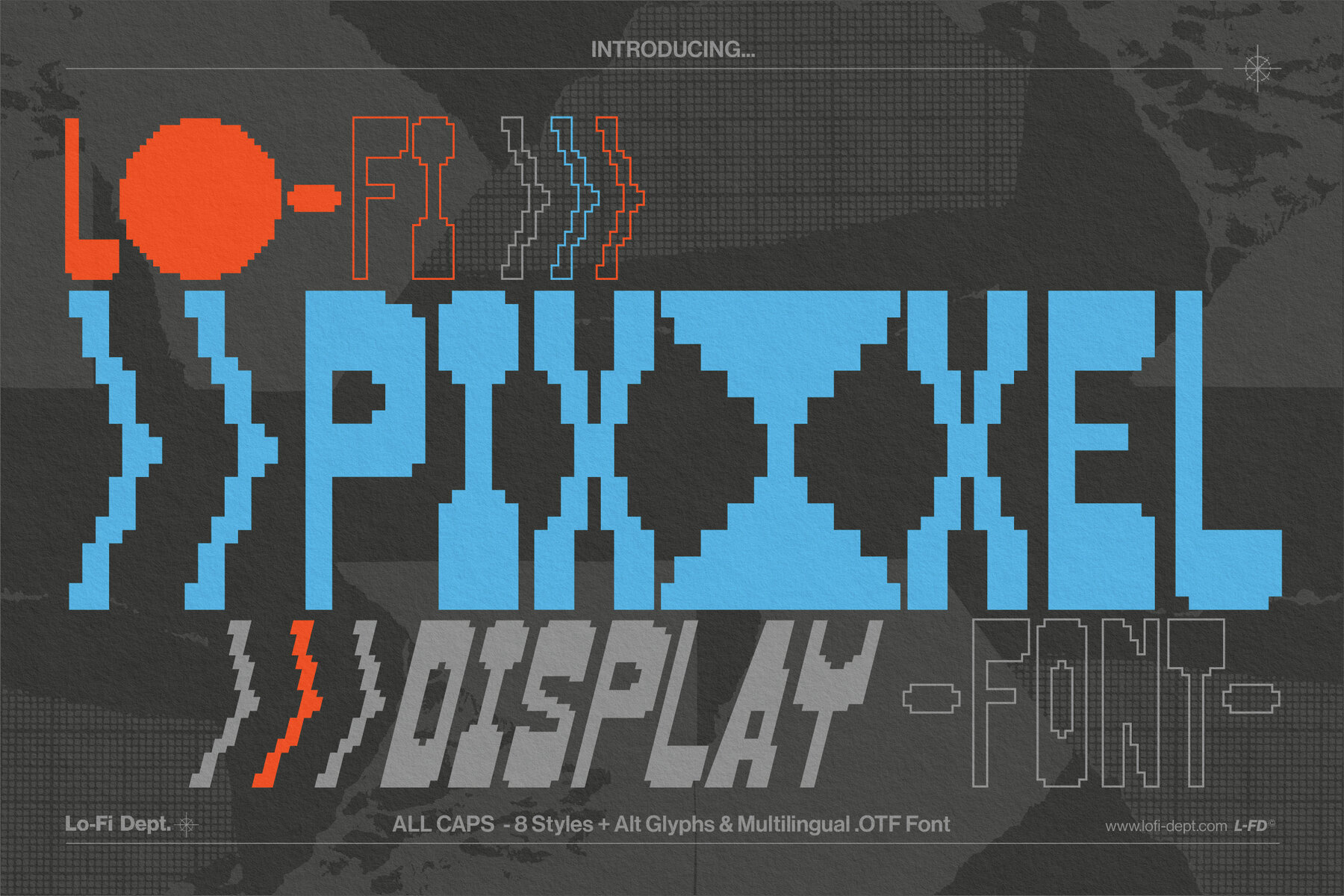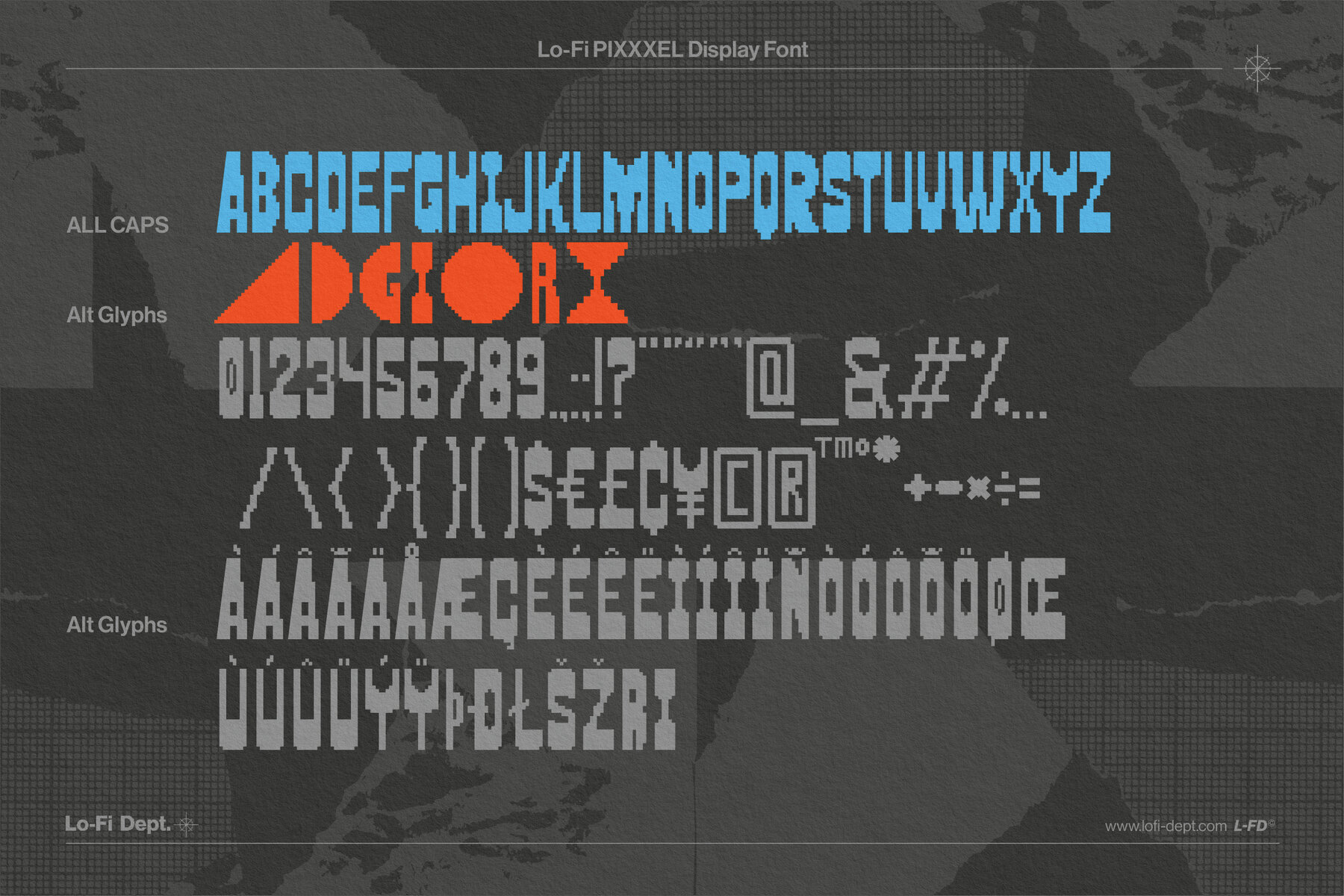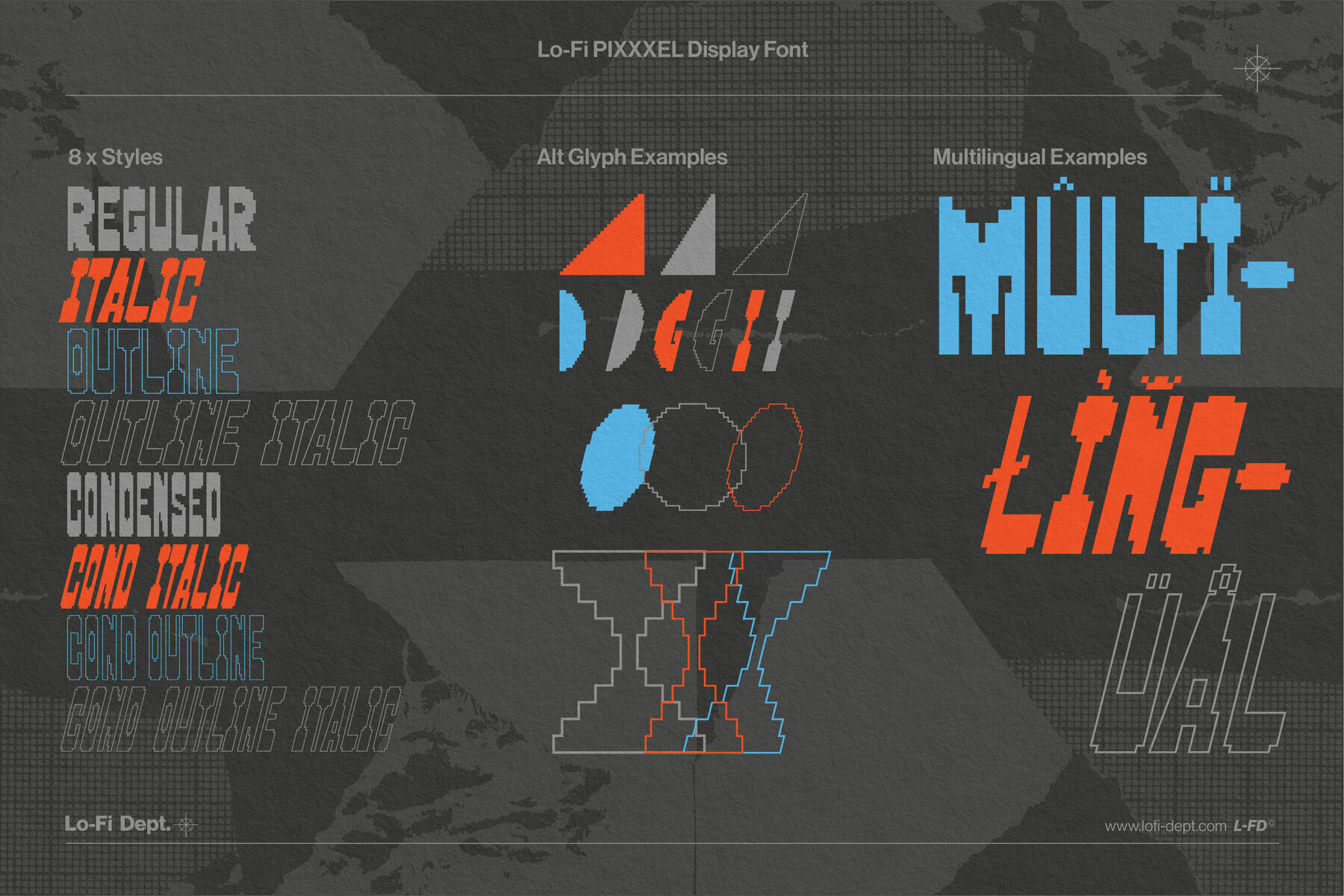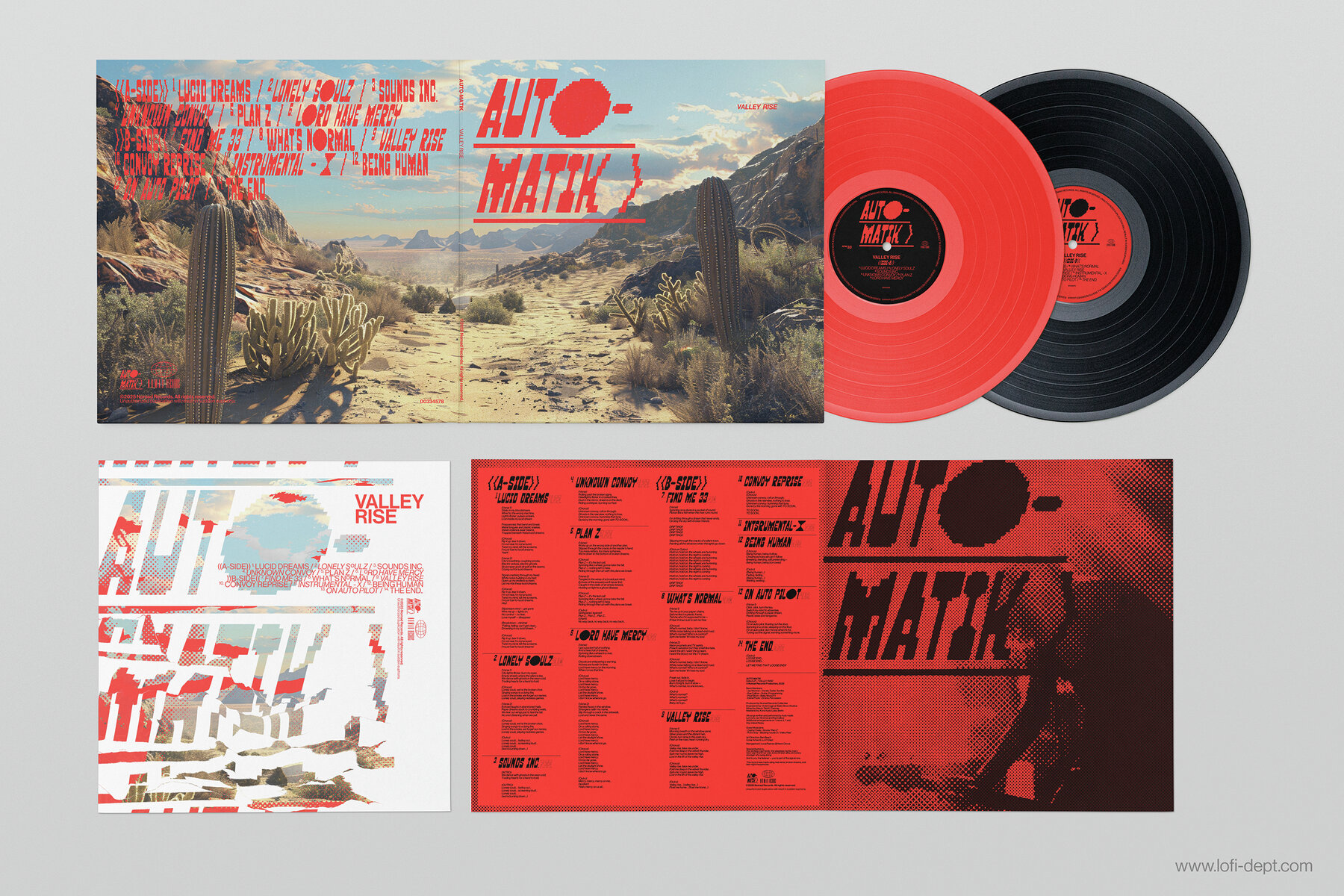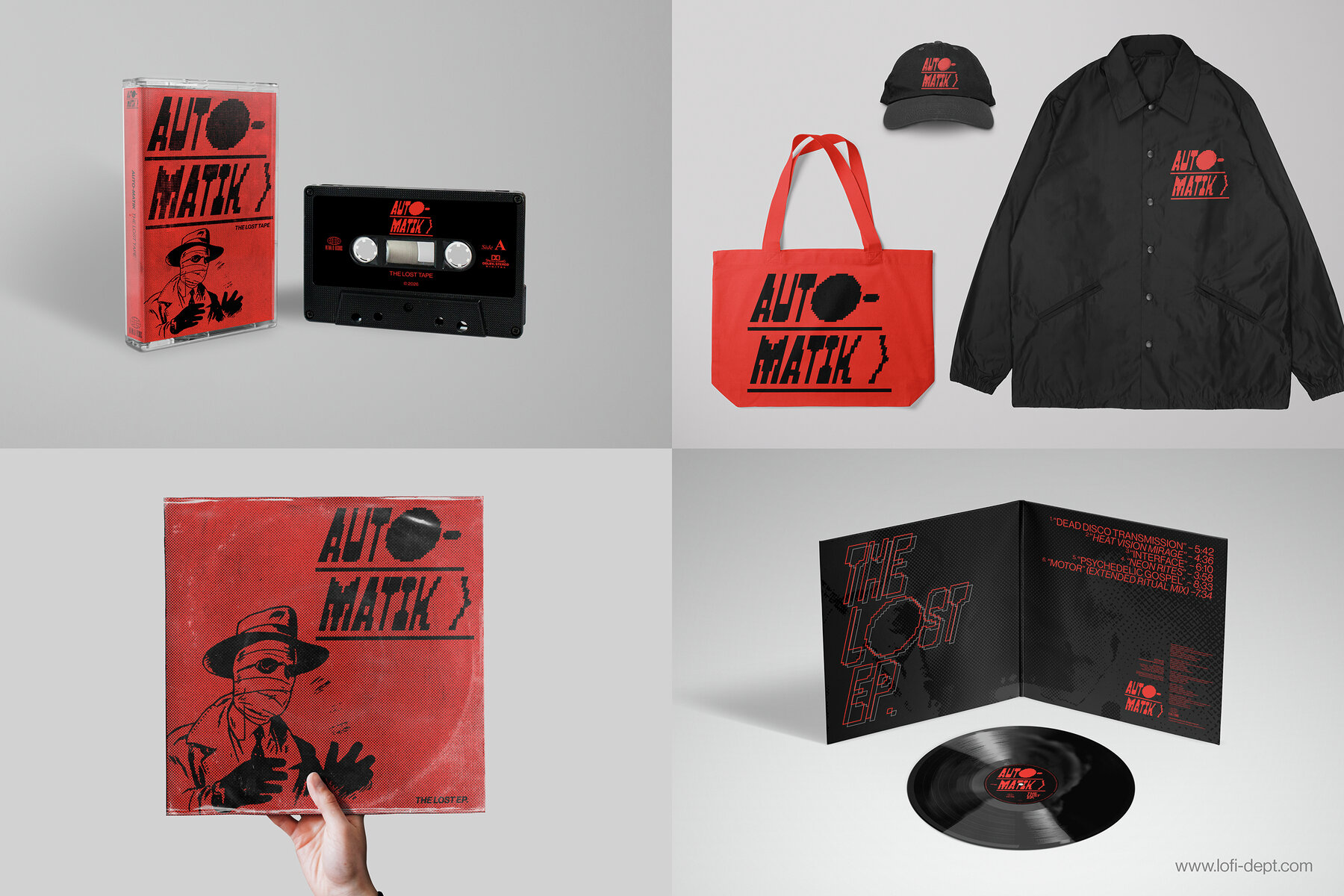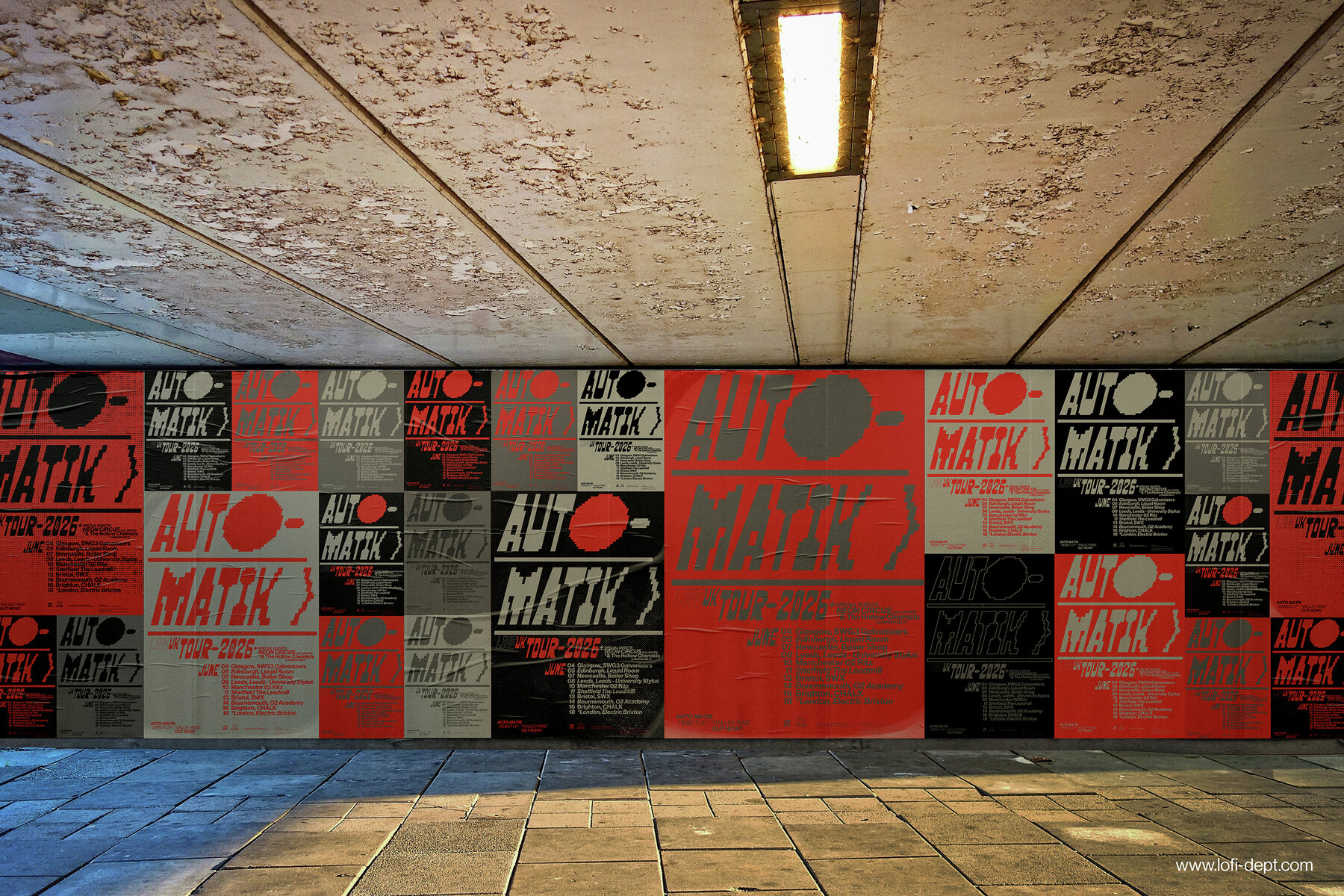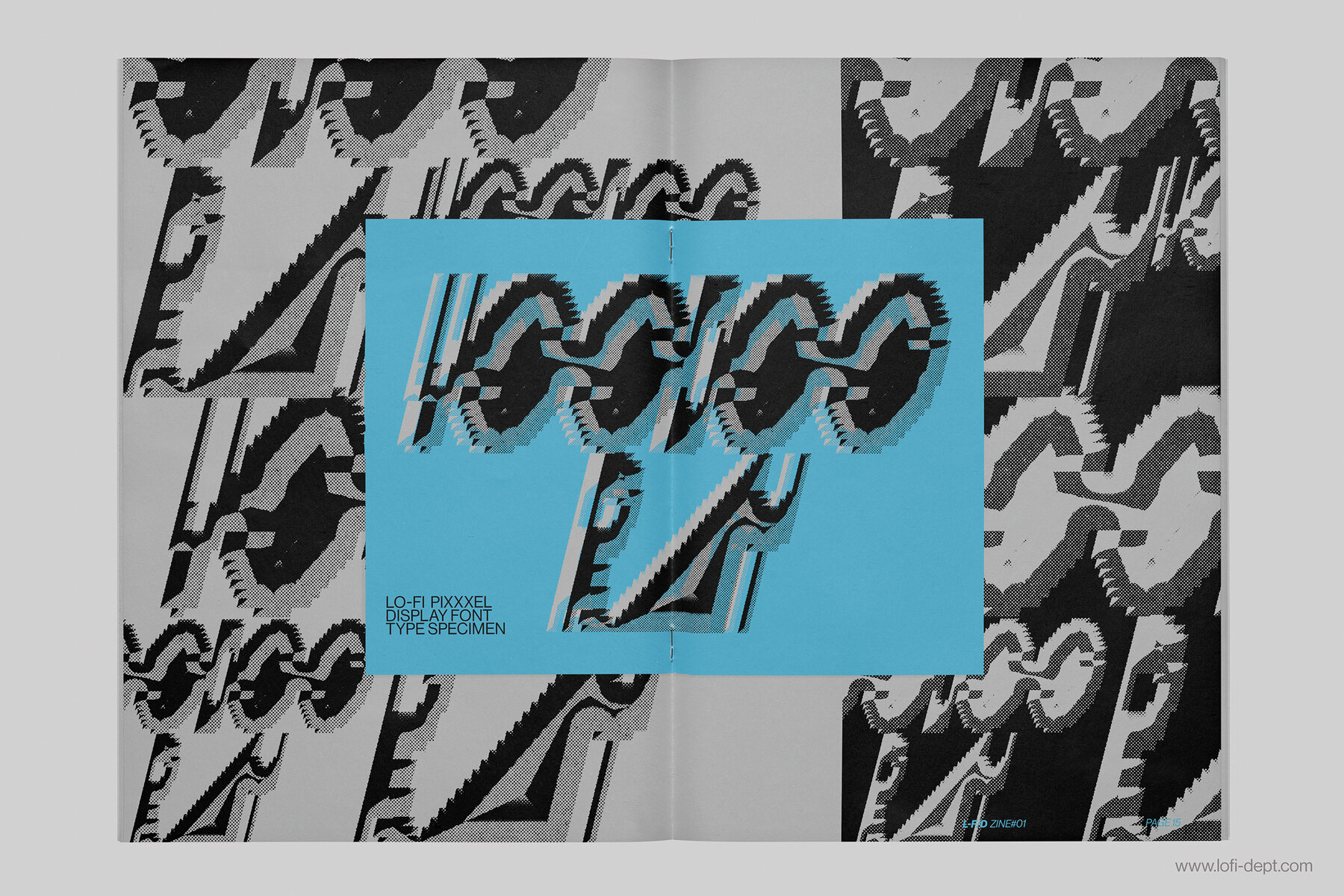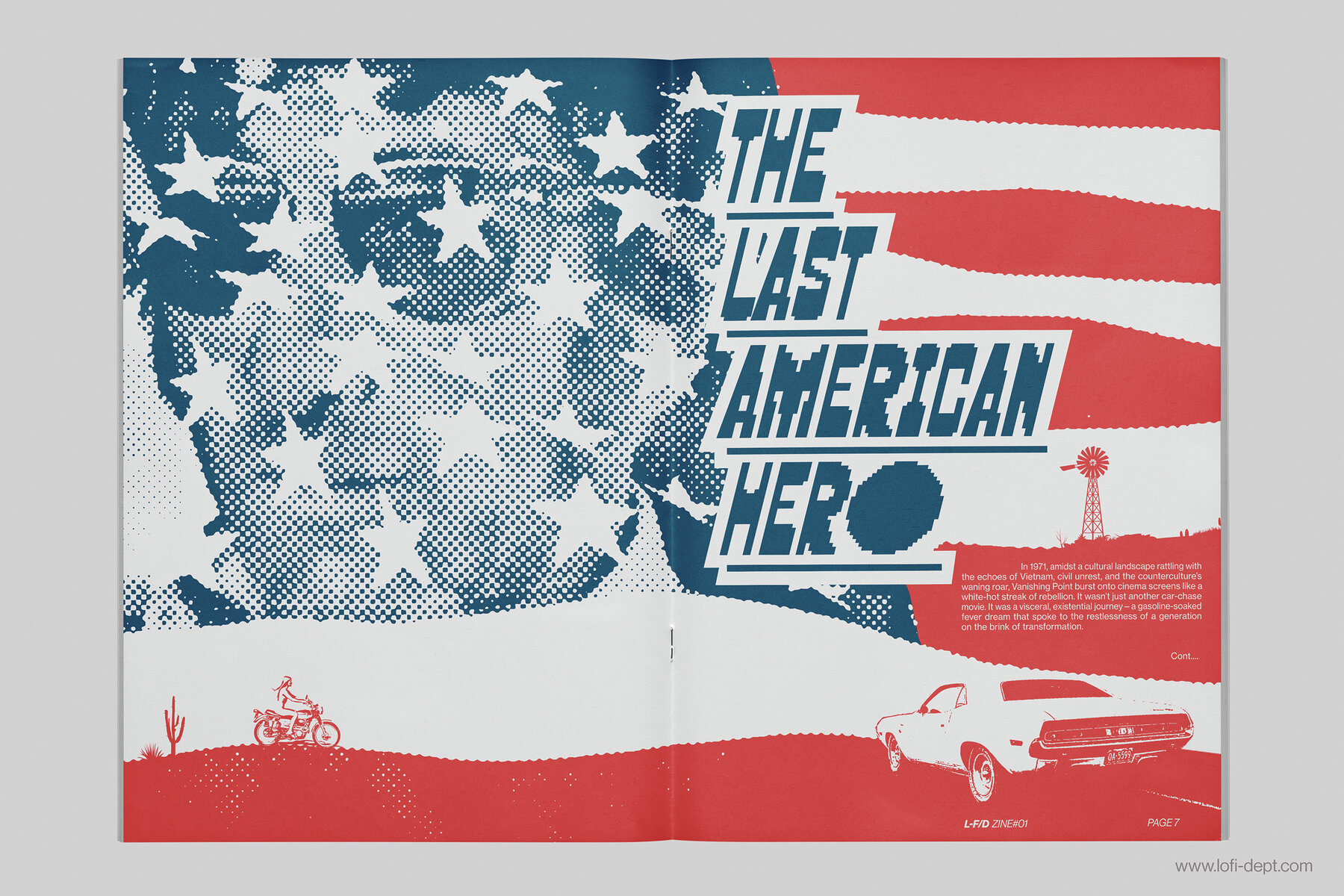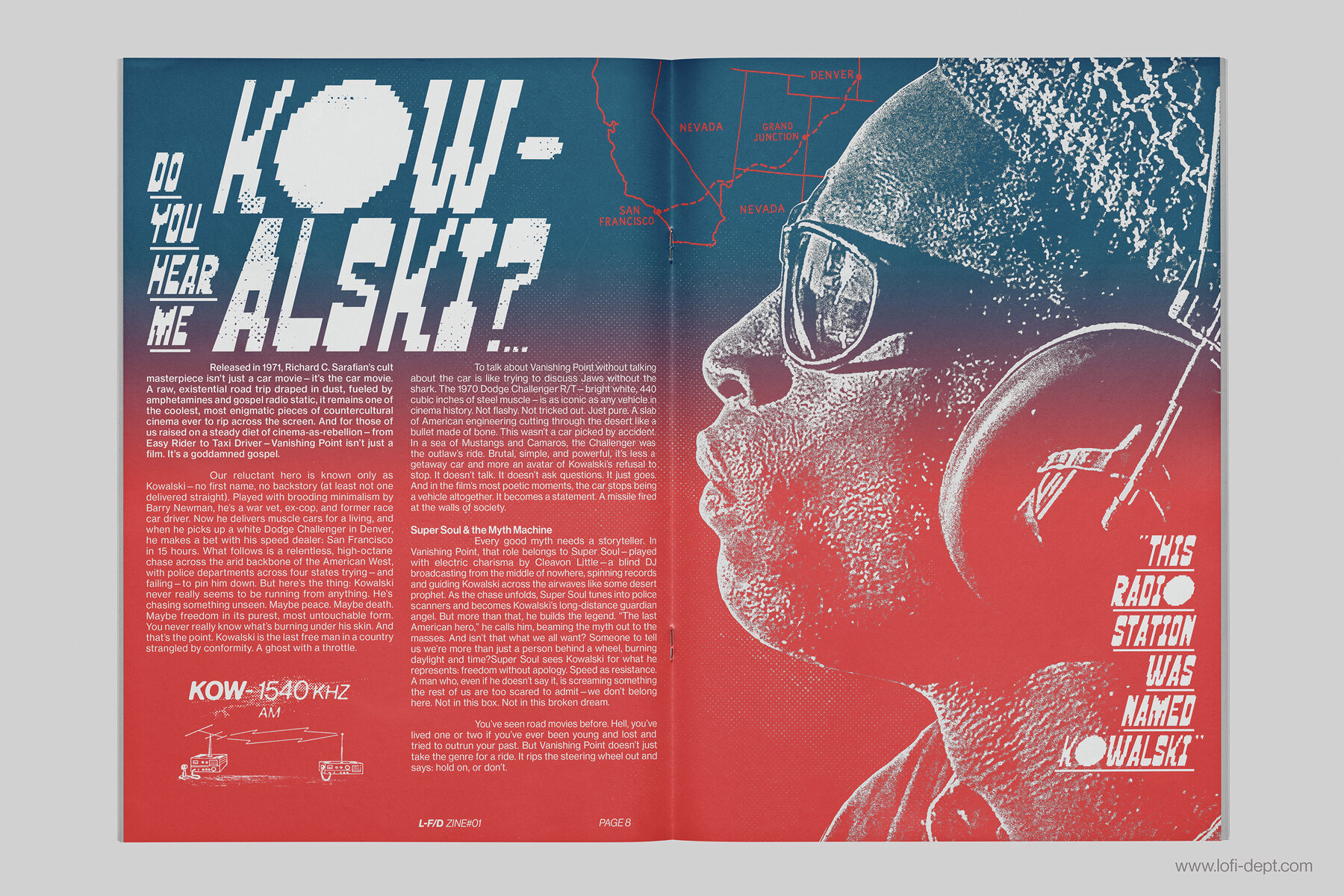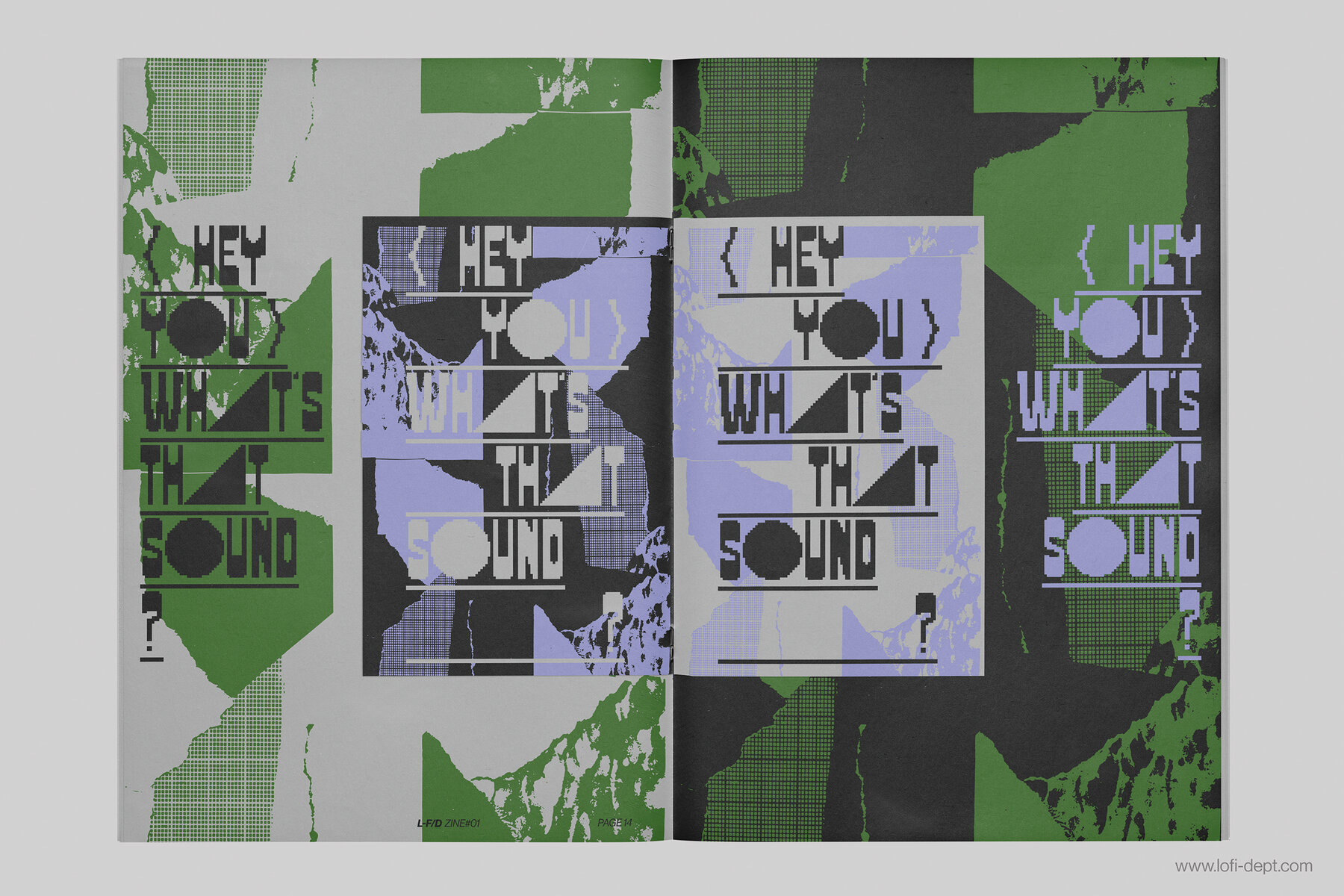
Lo Fi PIXXXEL Font
LO FI PIXXXEL
LO FI PIXXXEL Italic
LO FI PIXXXEL COND
LO FI PIXXXEL COND Italic
LO FI PIXXXEL COND Out Italic
LO FI PIXXXEL COND Outline
LO FI PIXXXEL Outline
LO FI PIXXXEL Outline Italic
Lo-Fi PIXXXEL is a graphic display font from the Lo-fi Dept that embodies the essence of pixel-based visuals and early computer graphics. Available in eight distinct styles—including italic, condensed, outline, and more—it offers a range of alternate glyphs that enhance its versatility. Bold and impactful, Lo-Fi PIXXXEL is ideal for zines, posters, and any project seeking a powerful, raw typographic expression. Its sharp, digital aesthetic captivates with a modular, bitmapped focus that stands out in any design context. FeaturesLo-Fi PIXXXEL: Pixelated Display Font with Retro Charm